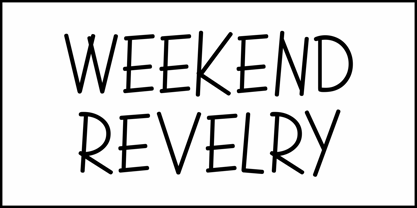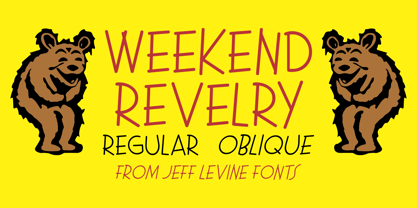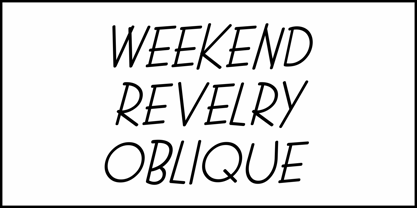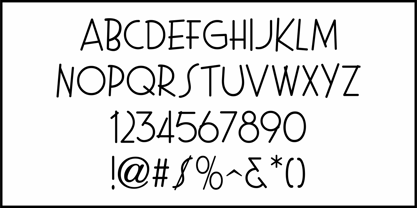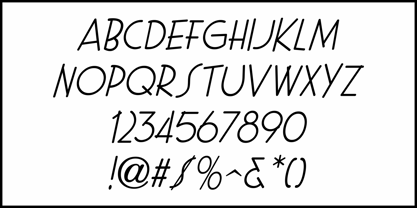
Weekend Revelry JNL
von Jeff Levine
Die Schriftfamilie Weekend Revelry JNL wurde von Jeff Levine entworfen und von Jeff Levine veröffentlicht. Weekend Revelry JNL enthält 2 Stile und Familienpaketoptionen.
Various ads in the Jan. 31, 1938 and Feb. 7, 1938 issues of The Film Daily promoted the music comedy feature "Radio City Revels".
The lettering for these ads was done with a round nib pen in a playful, casual, free form style with a slight touch of Art Deco thrown in.
Redrawn digitally as Weekend Revelry JNL, it is available in both regular and oblique versions.